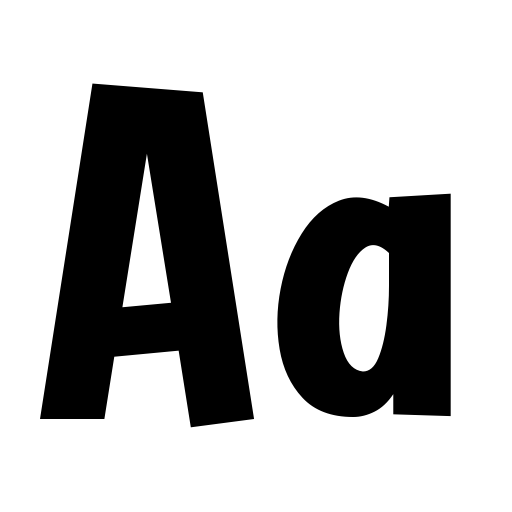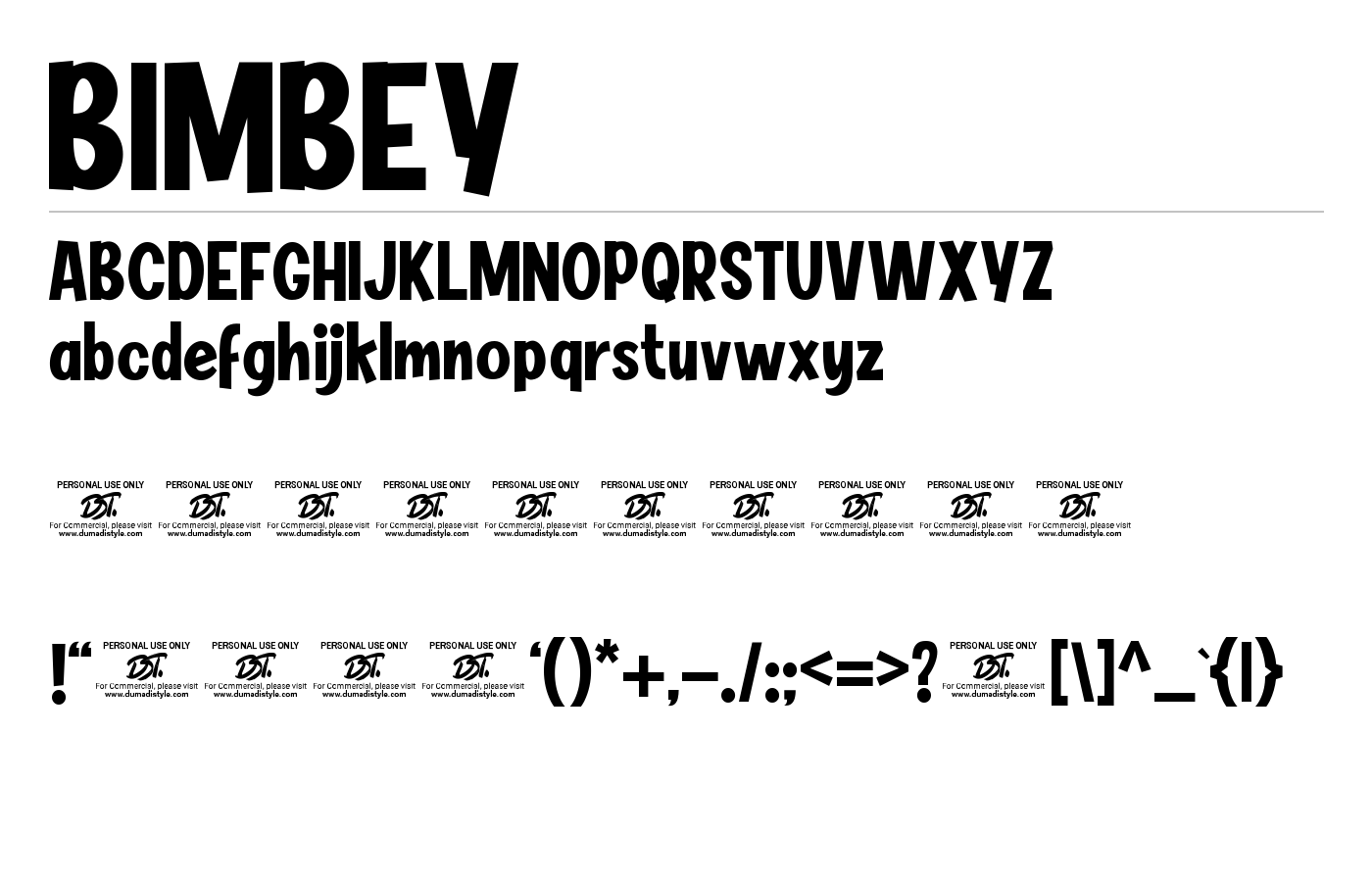
BIMBEY is a bold, playful sans serif font with a quirky, slightly irregular design that gives it a lively and informal feel. Its sturdy weight, condensed width, and unique letter shapes make it perfect for eye-catching headlines, posters, and branding that seeks a fun, energetic personality. This font works great for creative projects and young, vibrant brands looking to stand out with a distinctive, approachable style.
BIMBEY Font
About BIMBEY Font